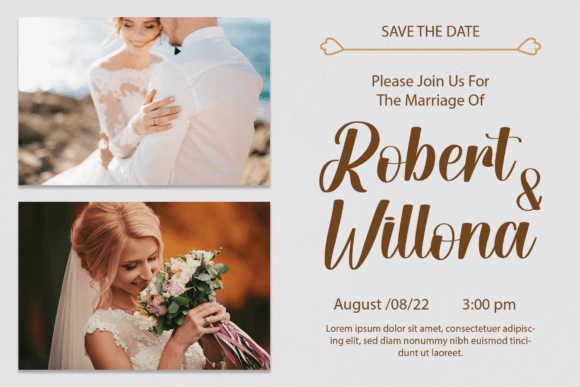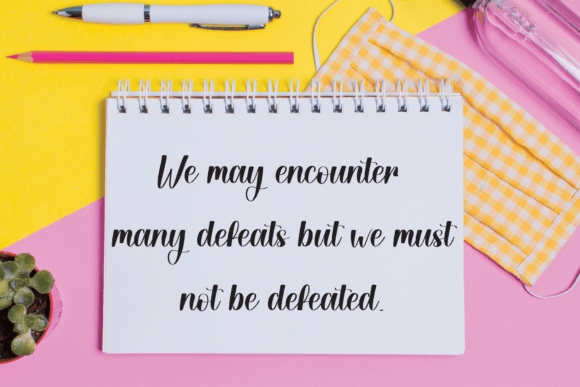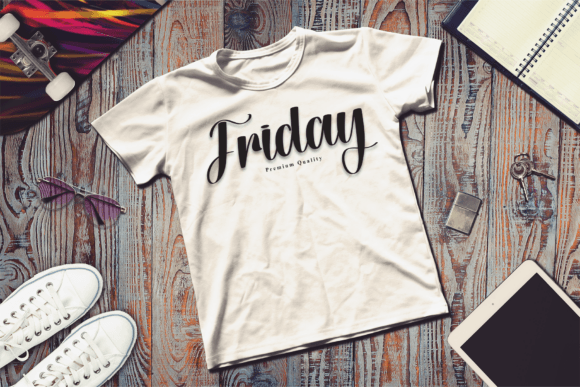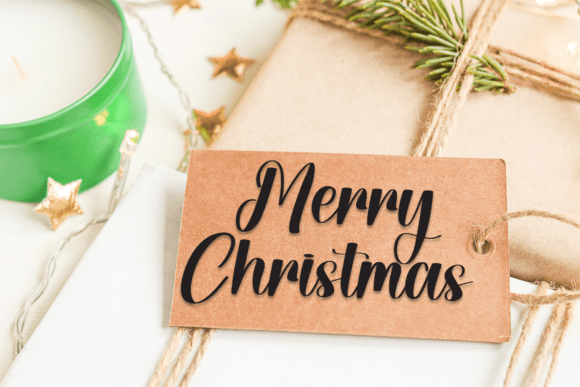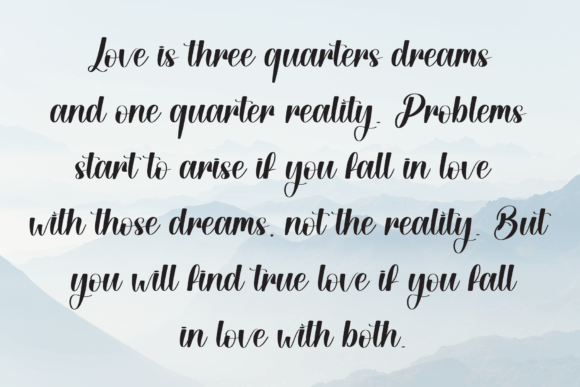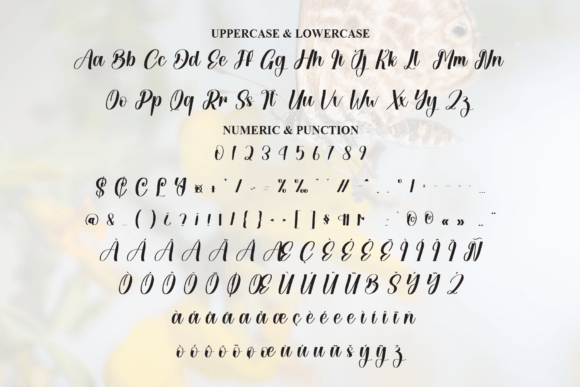
Introducing the Butterfly Font: A Playful and Friendly Handwritten Style
Are you looking for a font that can add a touch of whimsy and fun to your designs? Look no further than the Butterfly Font, a bold handwritten style that is perfect for invitations, posters, and any project that needs a personal and creative feel. In this article, we’ll take a closer look at the Butterfly Font, its unique features, and how you can use it to elevate your designs.
What is the Butterfly Font?
The Butterfly Font is a bold handwritten font that is designed to look playful and friendly. Its thick, flowing letters give a fun and lively vibe, making it perfect for projects that need a touch of creativity. The font’s unique style adds a personal feel, making your words stand out beautifully. Whether you’re designing an invitation, poster, or social media graphic, the Butterfly Font is sure to make your project stand out.
Key Features of the Butterfly Font
- Bold and playful: The Butterfly Font is a bold and playful font that is designed to grab attention.
- Handwritten style: The font has a handwritten style that gives it a personal and unique feel.
- Thick and flowing letters: The font’s thick and flowing letters give it a fun and lively vibe.
- Perfect for creative projects: The Butterfly Font is perfect for projects that need a touch of creativity, such as invitations, posters, and social media graphics.
How to Use the Butterfly Font
The Butterfly Font is a versatile font that can be used in a variety of projects. Here are a few ideas to get you started:
- Invitations: Use the Butterfly Font to create custom invitations for weddings, birthday parties, and other special events.
- Posters: Use the font to create eye-catching posters for concerts, festivals, and other events.
- Social media graphics: Use the font to create fun and engaging social media graphics that will help your brand stand out.
- DIY projects: Use the font to add a personal touch to your DIY projects, such as scrapbooking, card making, and crafting.
Why Designers and Crafters Love the Butterfly Font
Designers and crafters love the Butterfly Font for its unique and playful style. Here are a few reasons why:
- Easy to read: The font is easy to read, even in large and small sizes.
- Versatile: The font can be used in a variety of projects, from invitations to social media graphics.
- Unique: The font’s unique style sets it apart from other fonts, making it perfect for designers and crafters who want to add a personal touch to their projects.
Tips for Using the Butterfly Font
Here are a few tips for using the Butterfly Font:
- Use it sparingly: While the Butterfly Font is a fun and playful font, it can be overwhelming if used too much. Use it sparingly to add a touch of whimsy to your designs.
- Pair it with other fonts: The Butterfly Font pairs well with other fonts, such as sans serif fonts and script fonts. Experiment with different pairings to find the one that works best for your project.
- Experiment with colors: The Butterfly Font looks great in a variety of colors, from bright and bold to soft and pastel. Experiment with different colors to find the one that works best for your project.
The Butterfly Font is a bold and playful handwritten font that is perfect for designers and crafters who want to add a touch of whimsy to their projects. Its unique style and thick, flowing letters make it perfect for invitations, posters, and social media graphics. With its versatility and ease of use, the Butterfly Font is a great addition to any designer’s or crafter’s toolkit.